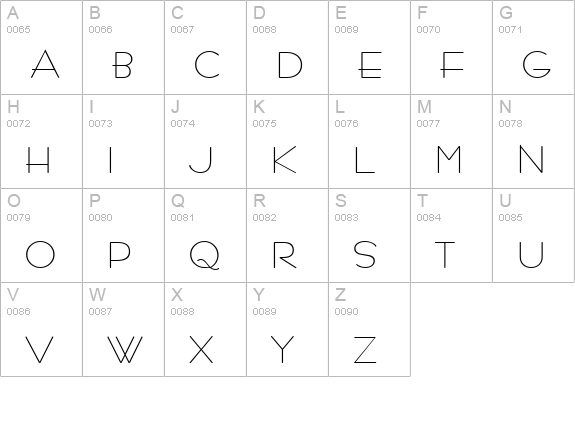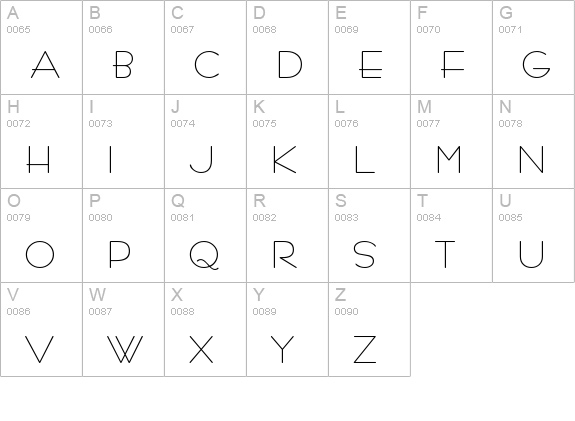
FastracFashion Regular is the standard, neutral variant in the FastracFashion typeface family \xE2\x80\x94 well suited to general body text, paragraphs, and standard typographic work.
Introducing FastracFashion Regular font - a sleek and stylish typeface perfect for adding a touch of sophistication to your design projects. This versatile font features clean lines and a modern aesthetic, making it ideal for any fashion-related content. Whether you're creating a logo, website, or marketing materials, FastracFashion Regular font will elevate your design to the next level. Best of all, this font is available for free download at FontsMarket.com. Simply visit the website and start using FastracFashion Regular in your projects today. Don't miss out on this fantastic opportunity to enhance your designs with this elegant and contemporary font. Download FastracFashion Regular now and see the difference it can make in your creative work.